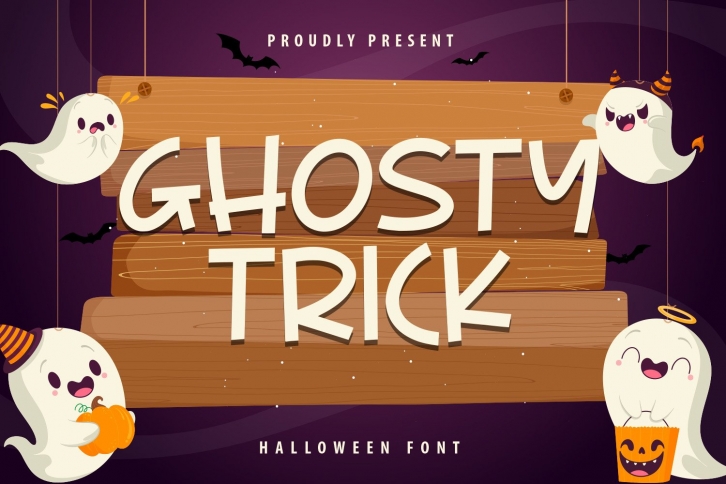
Ghost Trick is a cute and spooky display font. It embodies playfulness and authenticity and is the perfect choice for any children activity or school project.